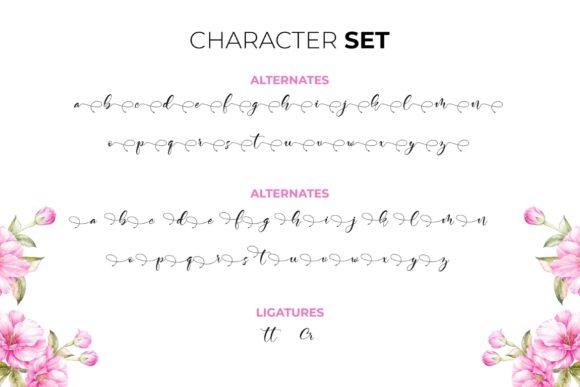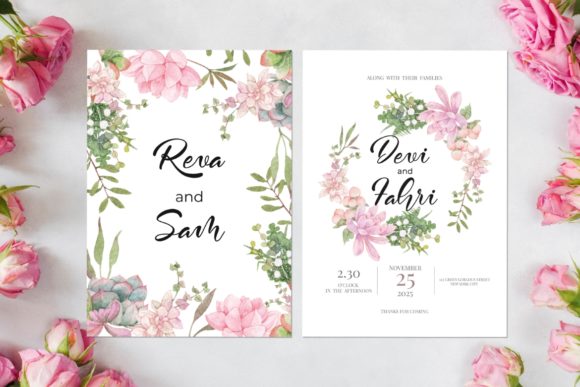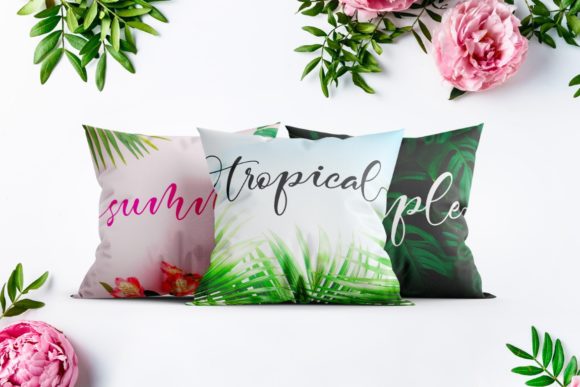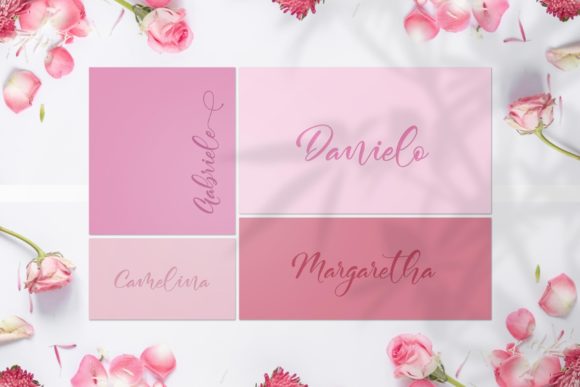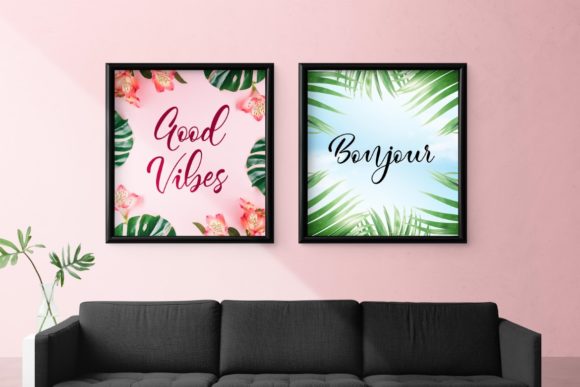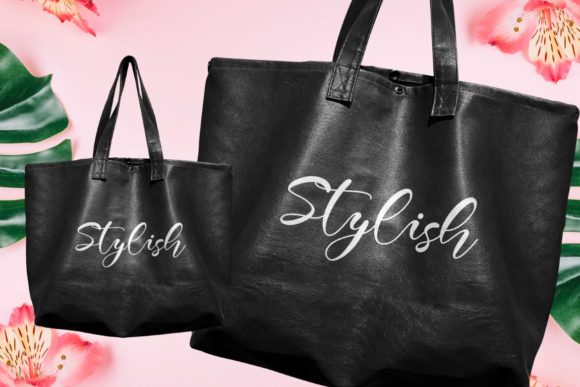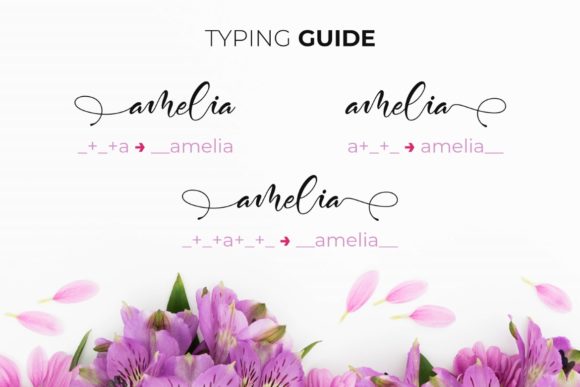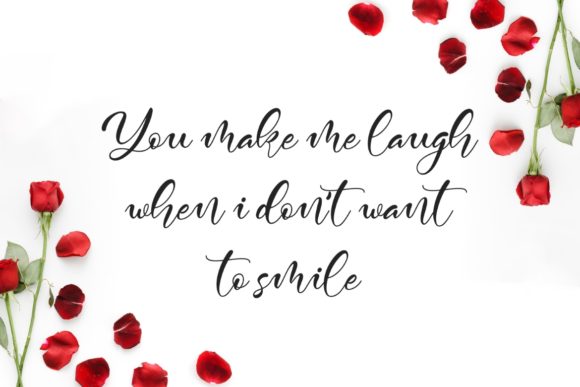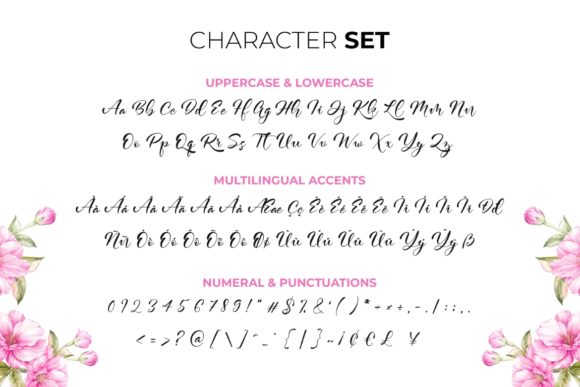
Kamelitta Font
About Kamelitta Font
Kamelitta is a cute and casual handwritten font with an incredibly friendly feel. It features gorgeous swashes and ligatures that make this script incredibly versatile. Whether you’re looking for fonts for Instagram or calligraphy scripts for DIY projects, Kamelitta will turn any creative idea into a true piece of art!